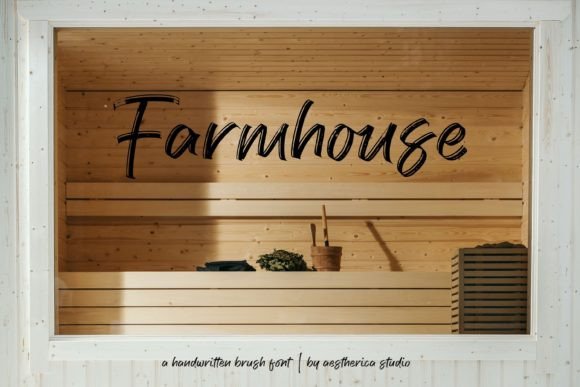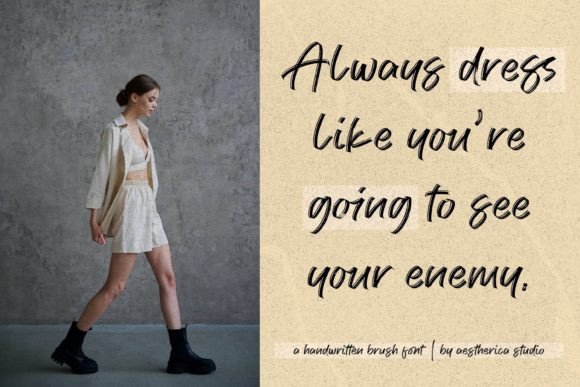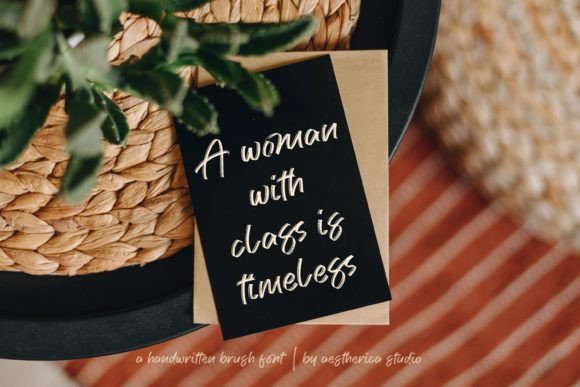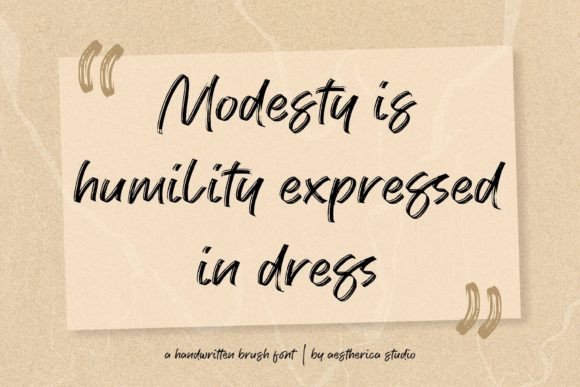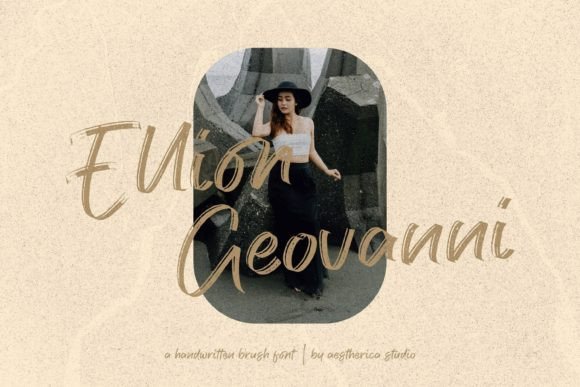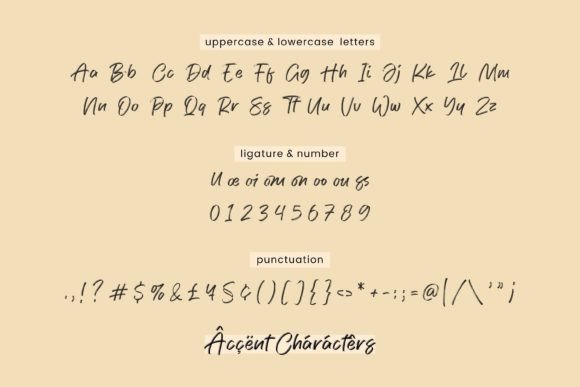
Introduction to Modesty Font
Remember the thrill of creating something new and unique? The rush of excitement when your creative vision finally comes to life? For designers, that moment is what it’s all about. And with the right tools, that moment can become a reality.
As a designer, you’re always on the lookout for the perfect font to elevate your project. That’s where the Modesty Font comes in – a stunning script font with a handwritten dry brush style that’s sure to make a statement. With its high-concept art and versatility, this font is a game-changer for any creative project, from apparel to branding and web design.
Whether you’re looking for a free download or a high-quality design resource, the Modesty Font is a valuable addition to any designer’s toolkit. Plus, its transparent background makes it easy to use and customize, giving you the freedom to get creative and push the boundaries of your design.
Key Features of Modesty Font
- High-quality design resource with a unique and elegant style, perfect for creative projects.
- Perfect for use in graphic design, digital art, and other creative projects where a high-quality, elegant font is required.
Honest Review: Modesty Font
I recently had the chance to dive into the Modesty Font, a free design resource that caught my attention. At first glance, I was impressed by its high quality and versatility.
What works well: ✨ The Modesty Font comes in a variety of styles, making it perfect for creative projects that require a touch of elegance. The transparent background also makes it easy to use in different design scenarios.
Here are some of my favorite features:
- High-quality design: The Modesty Font is crisp and clean, making it ideal for a range of creative projects.
- Transparent background: This feature allows for seamless integration into any design.
Overall impression: I was impressed by the quality and versatility of the Modesty Font. While it may not be perfect for every project, it’s definitely a great addition to any designer’s toolkit. I’d recommend giving it a try for your next creative project.
Modesty Font
Tips for Getting the Most Out of Modesty Font
Experiment with different font sizes and colors to achieve the desired effect. Use the Modesty Font in combination with other design elements to create a unique and eye-catching design.
The Modesty Font is ideal for use in creative projects such as wedding invitations, business cards, and marketing materials. Its elegant design makes it perfect for formal events and professional presentations.